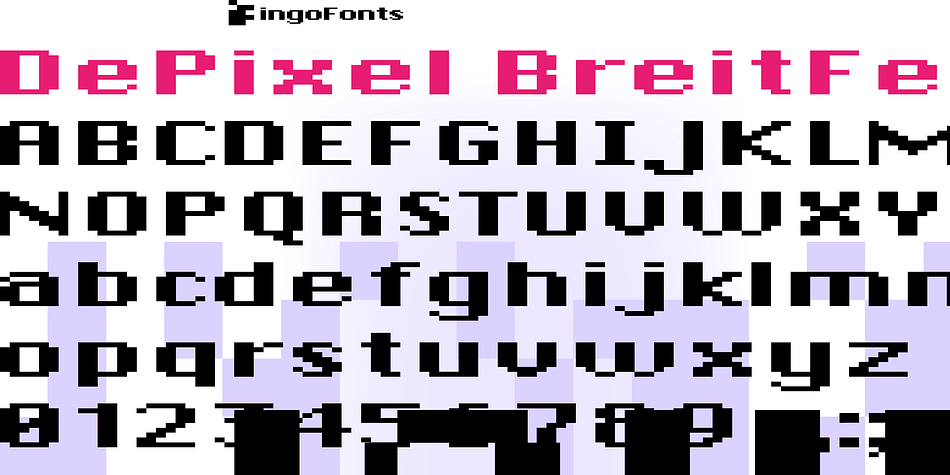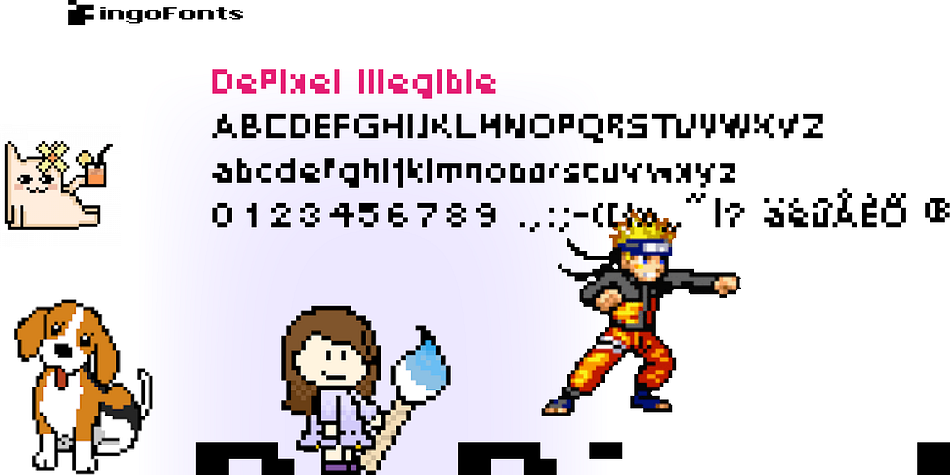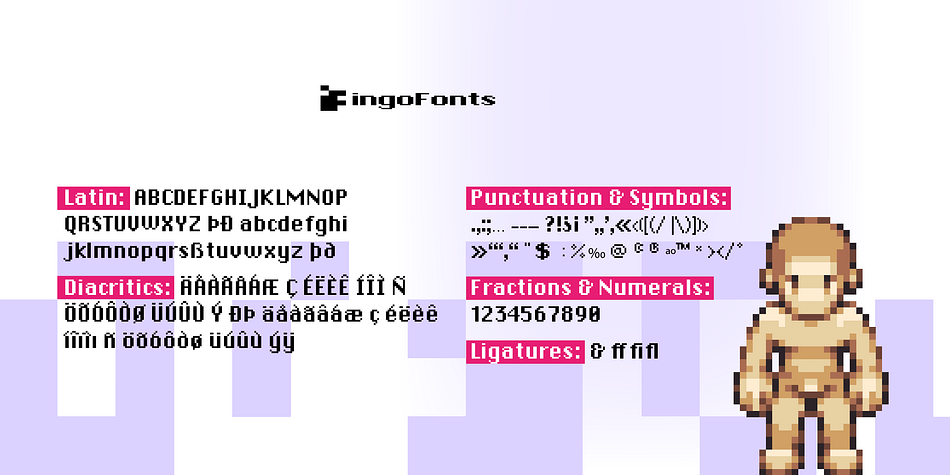
DePixel
Designed by Ingo Zimmerman, DePixel is a pixel font family. This typeface has six styles and was published by ingoFonts.
Nothing more than Apple’s renowned system font ”Geneva“ in the bit map representation, but as a PostScript font; aliased like ”Geneva“ in 9 or 10 points, or even in resolutions that are too small, that is, under 8 points; ideal for ”pixely“ topics.
An anachronism in the digital age: While the whole world speaks of progress, the font on the monitor has only ”progressed“ into a non-pleasant-to-read conglomeration of pixels. Each object on a monitor is displayed by lining up individual pixels. These pixels are so tiny, that they are hardly perceivable. The more pixels per surface unit (that means, the higher the resolution), the more the picture perceived by the eye merges into a sharply defined unit.
DePixel is based on the monitor fonts ”Geneva“ and ”Chicago,“ developed by Apple Computer. It simulates the configuration of individual pixels into letters. Thus, a font emerged which, regardless of size, can be recognized by the composition of a few individual pixels.